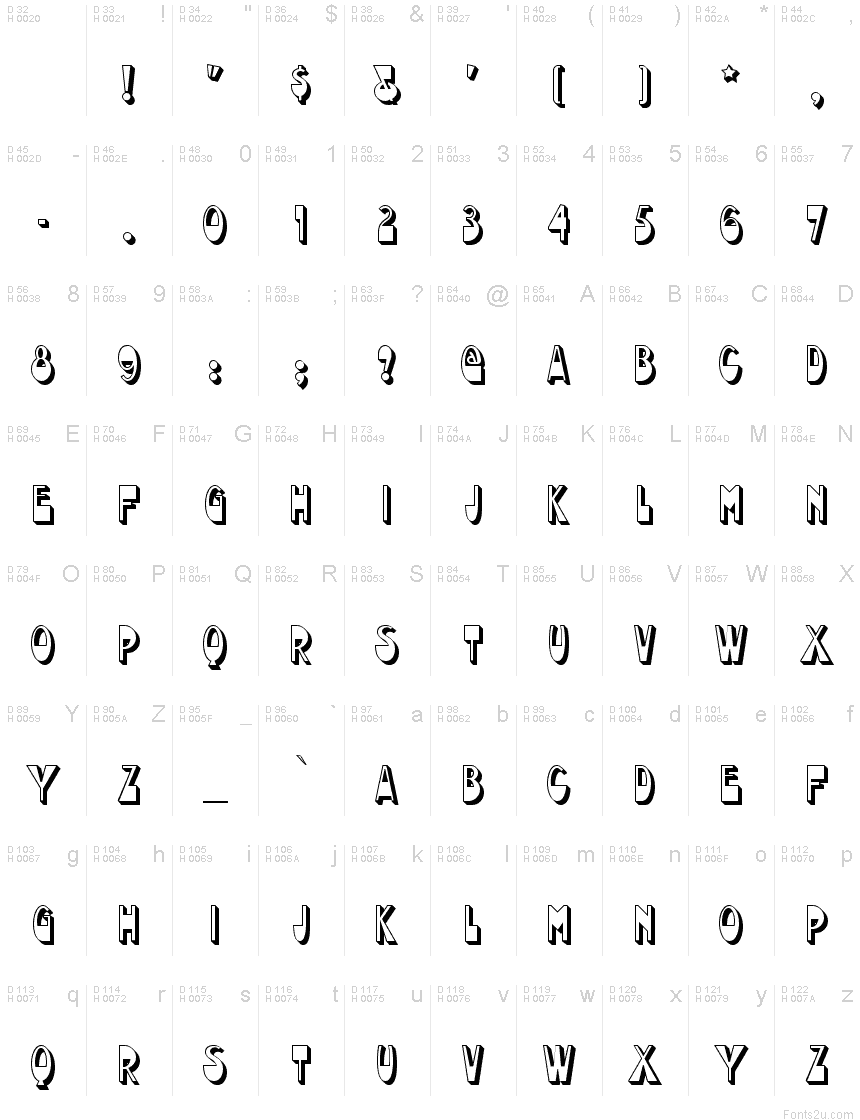
ChocolateDropsNF
Chocolate Drops NF font by Nick Curtis is a free groovy display typeface with letters that look like they’ve been dipped in glossy chocolate. Tall, pill-shaped forms with chunky inner cutouts and bold shadowing create a playful 3D wobble, as if every word is about to melt off the page. The rhythm is bouncy but controlled, so even short headlines feel big, sweet, and attention-grabbing.
Using Chocolate Drops NF, you can instantly sugar‑coat candy packaging, ice cream shop branding, retro posters, party invitations, kids’ menus, and fun logo concepts. This free font shines at large sizes where its thick curves and deep shadows can really show off. For body copy, pair it with a clean geometric sans in a lighter weight to keep things readable while letting the “chocolate” letters stay center stage.